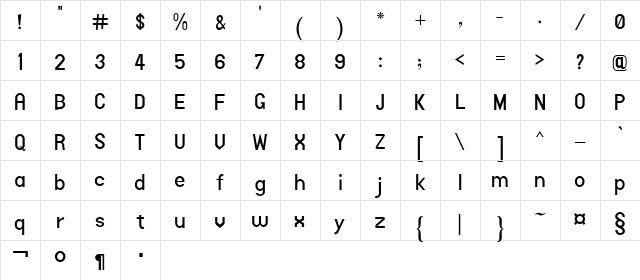
AlQalam Tehreeri Regular
Designer: Syed Shakir ul Qadree
Design Context for AlQalam Tehreeri
AlQalam Tehreeri is a composed and adaptable typeface that performs quietly and consistently across a wide range of design contexts.
Pro Tip: Use AlQalam Tehreeri in both headline and body roles to test its range before committing to a single application.